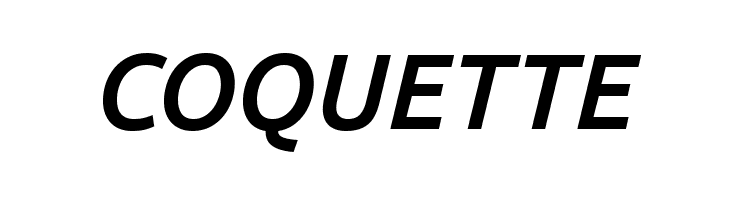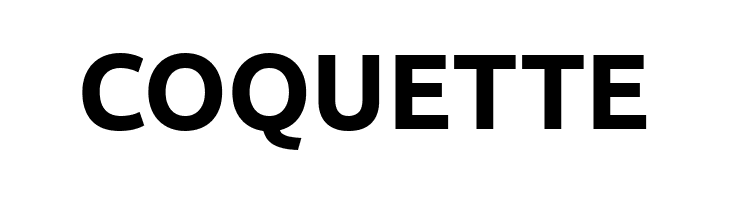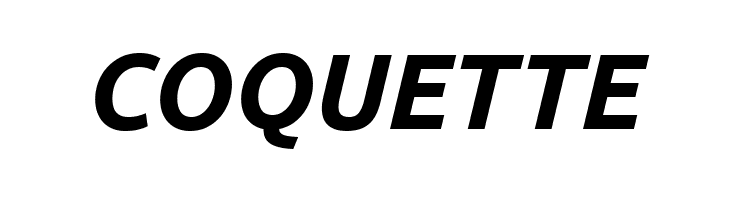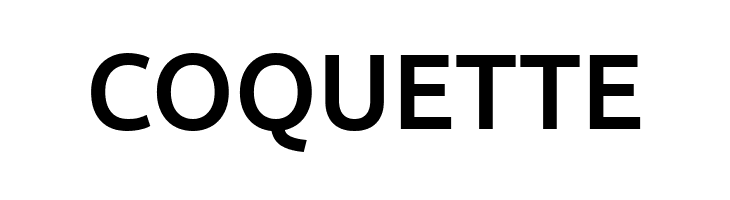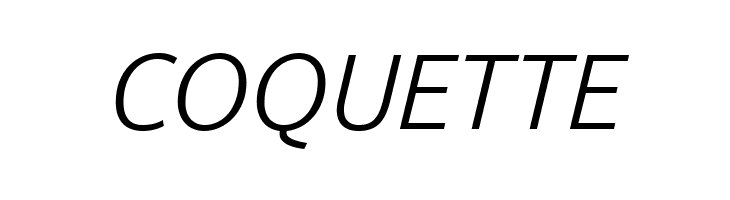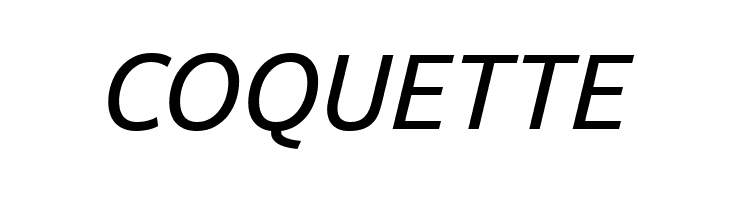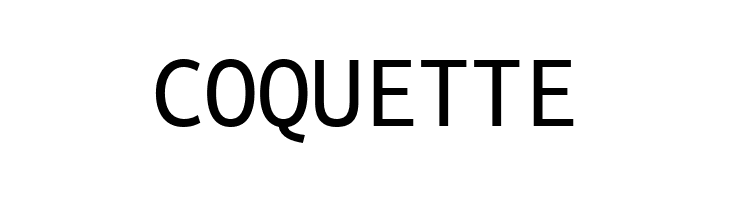
A bold, modern sans-serif font with clean, rounded edges and excellent readability.
A modern, condensed sans-serif font with a clean and balanced design.
A modern, italic sans-serif font with smooth curves and excellent legibility.
A modern, light sans-serif font with a clean and approachable design.
A sleek, modern, light italic font with smooth strokes and tight spacing.
A modern, clean sans-serif font with balanced proportions and medium weight.
A modern, clean, and slightly italic font with medium weight and excellent readability.
A clean, modern monospaced font with rounded edges and consistent spacing.